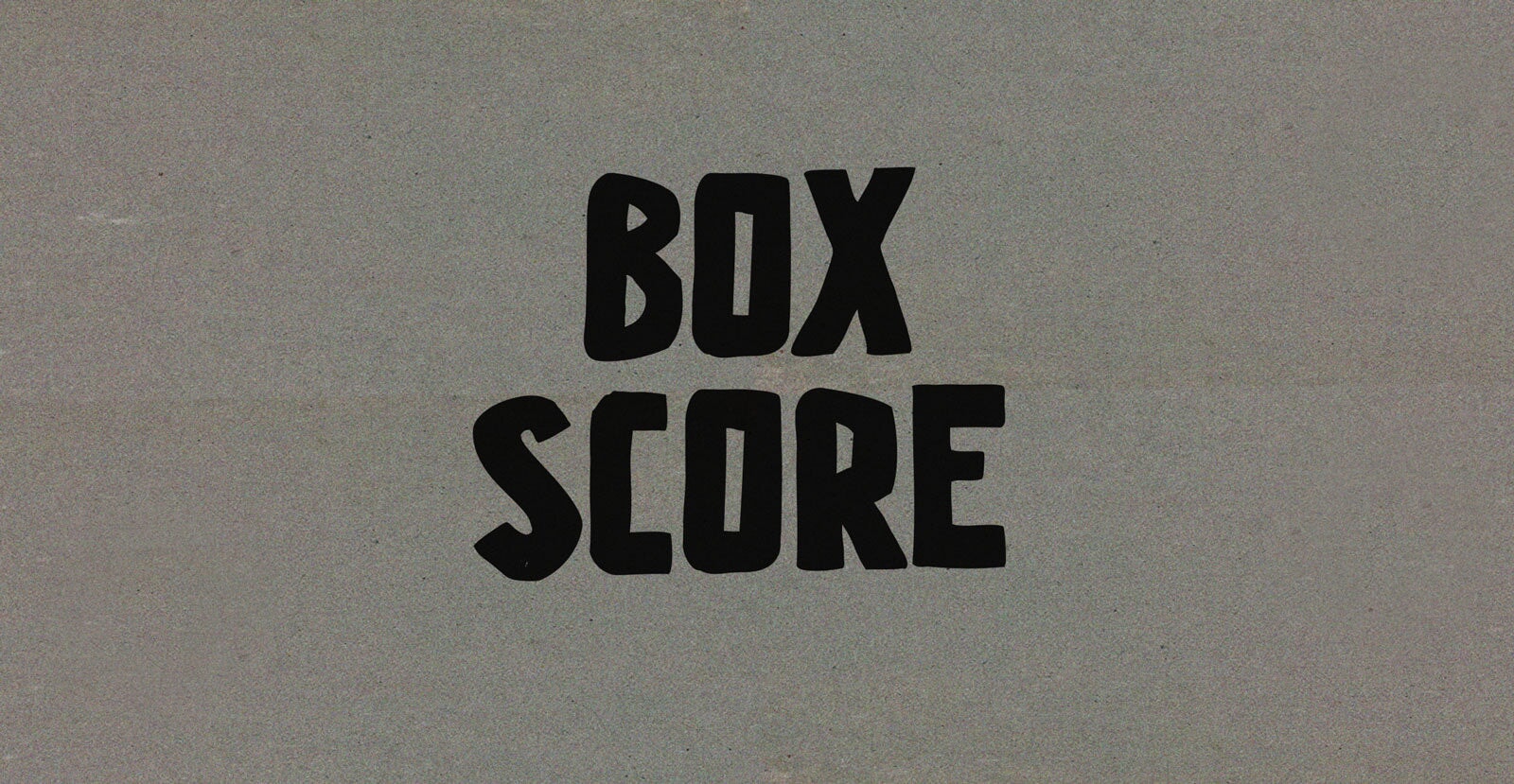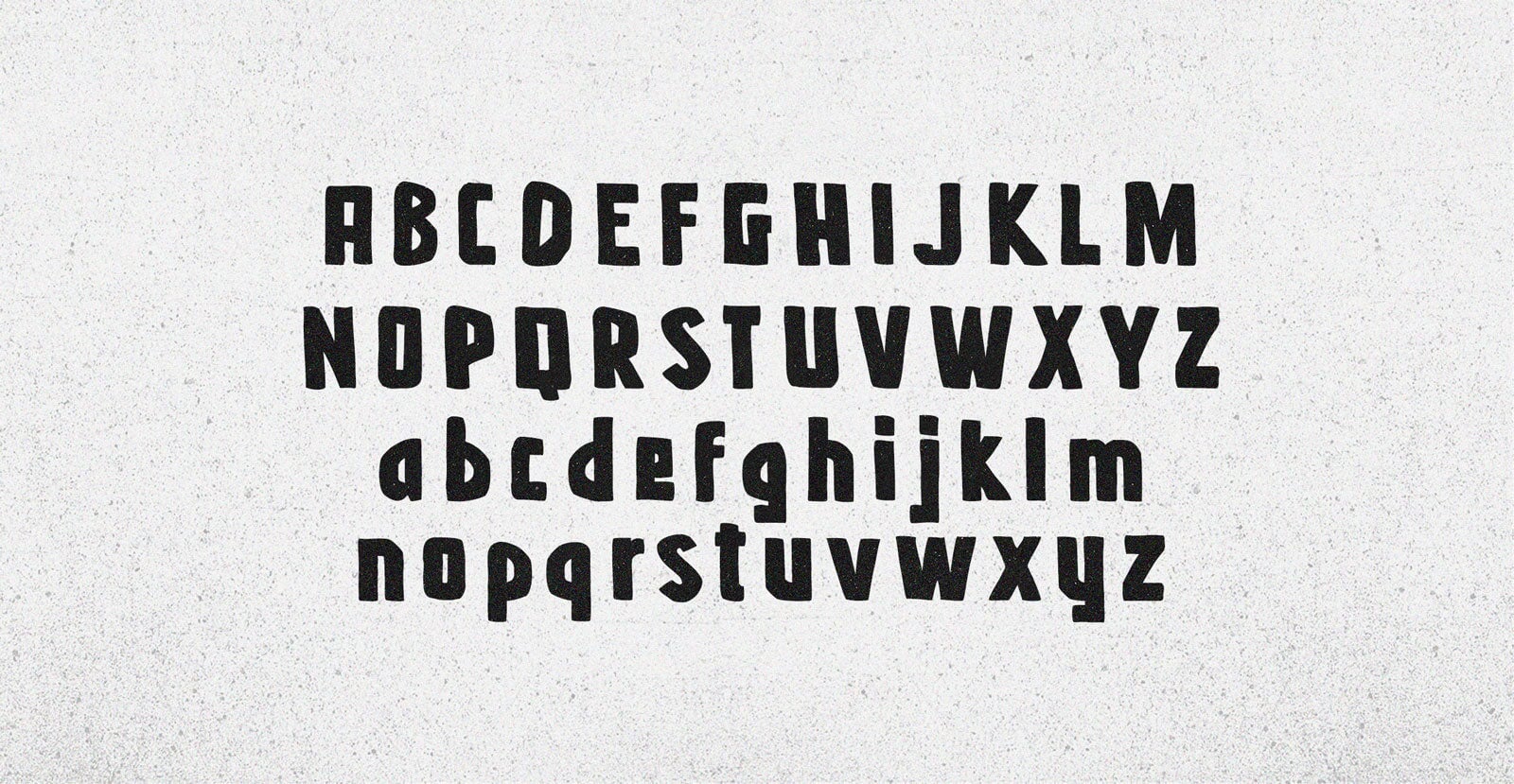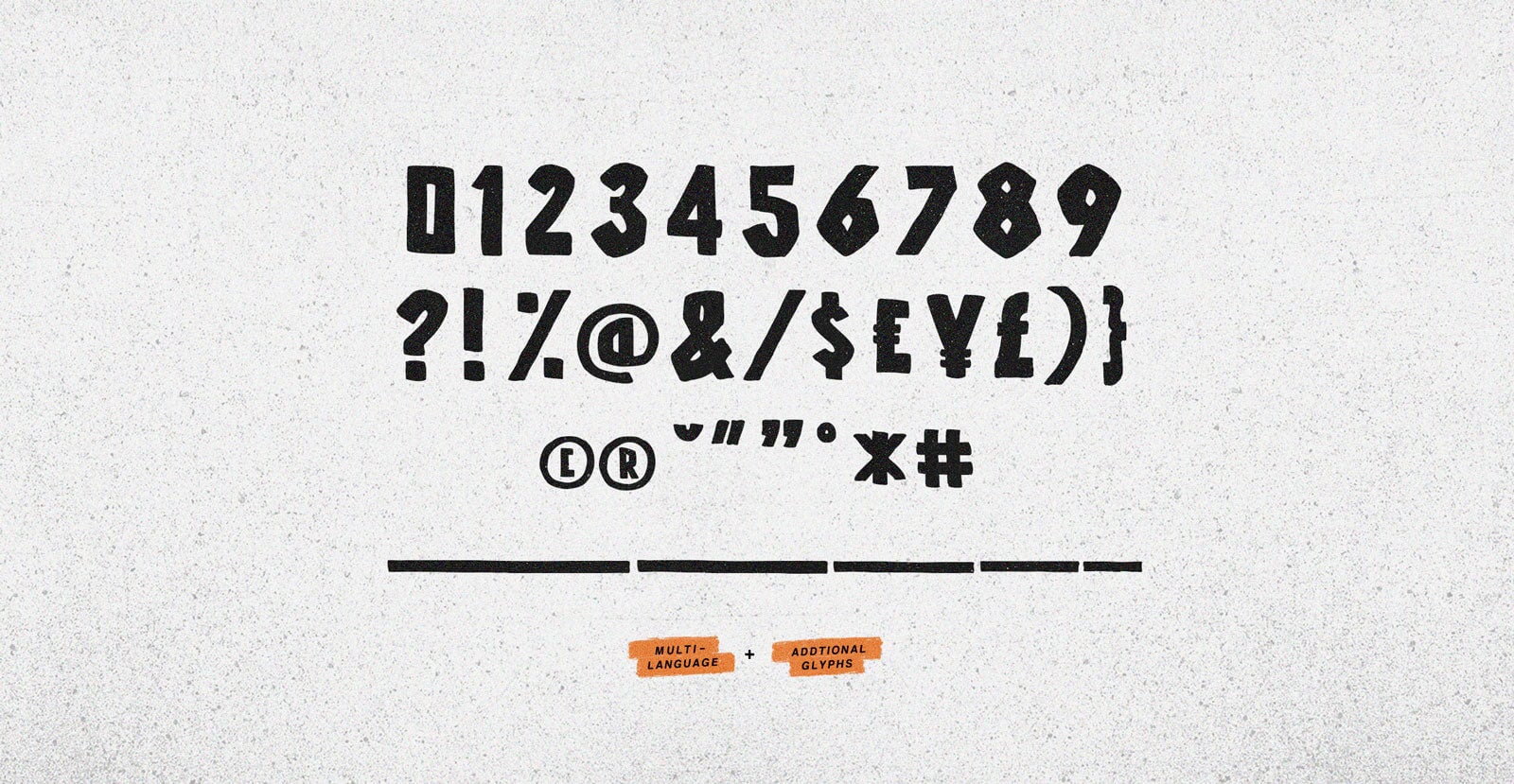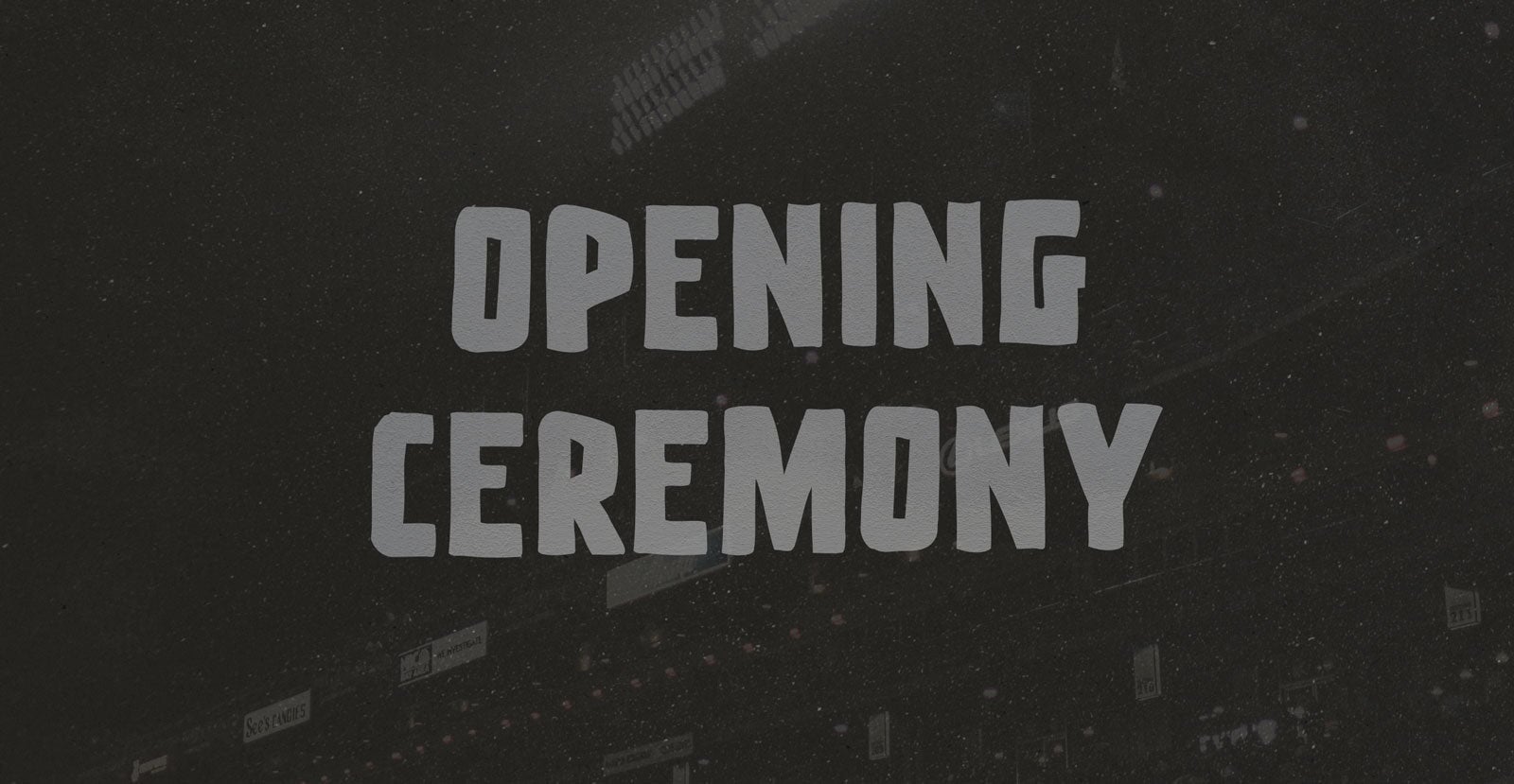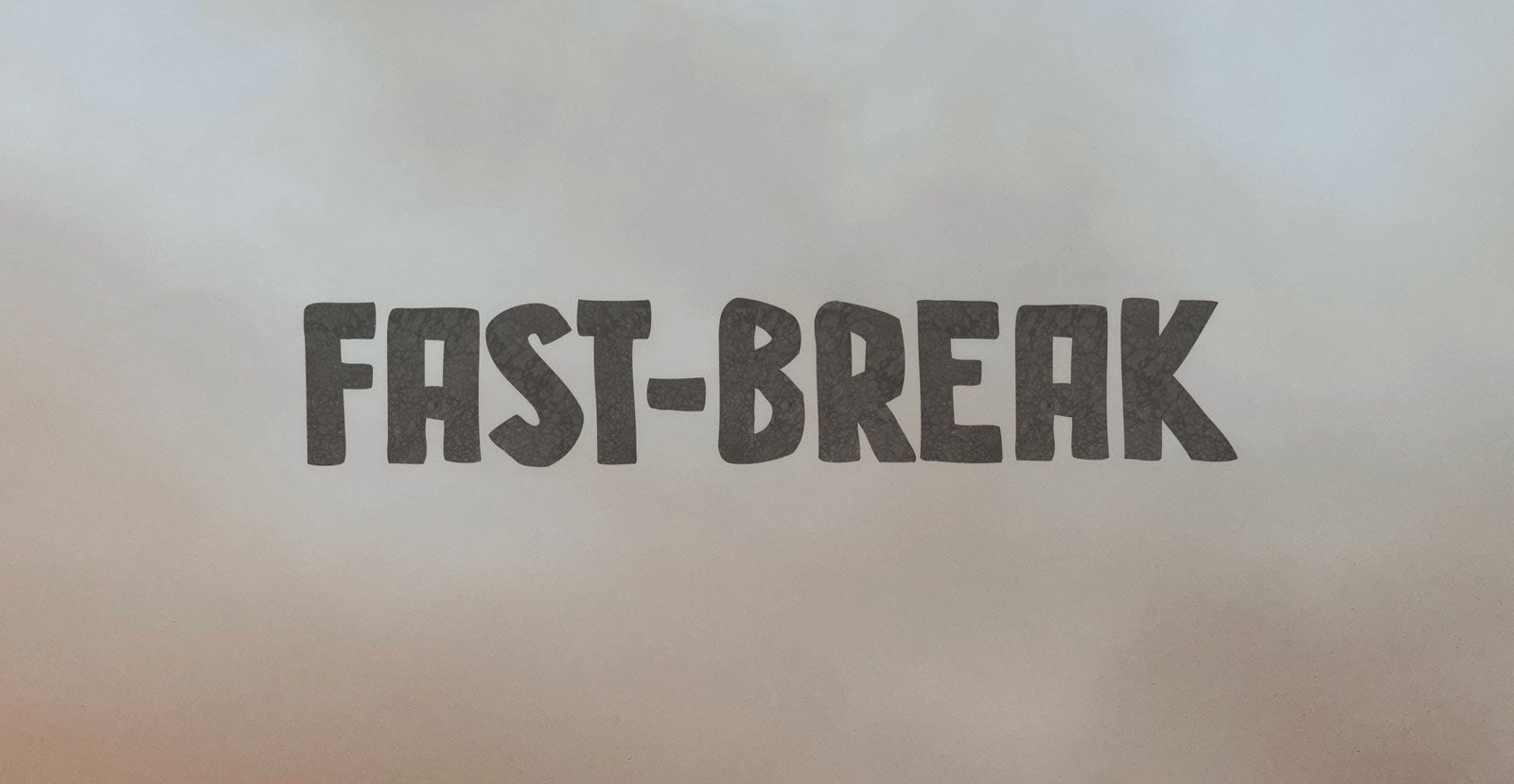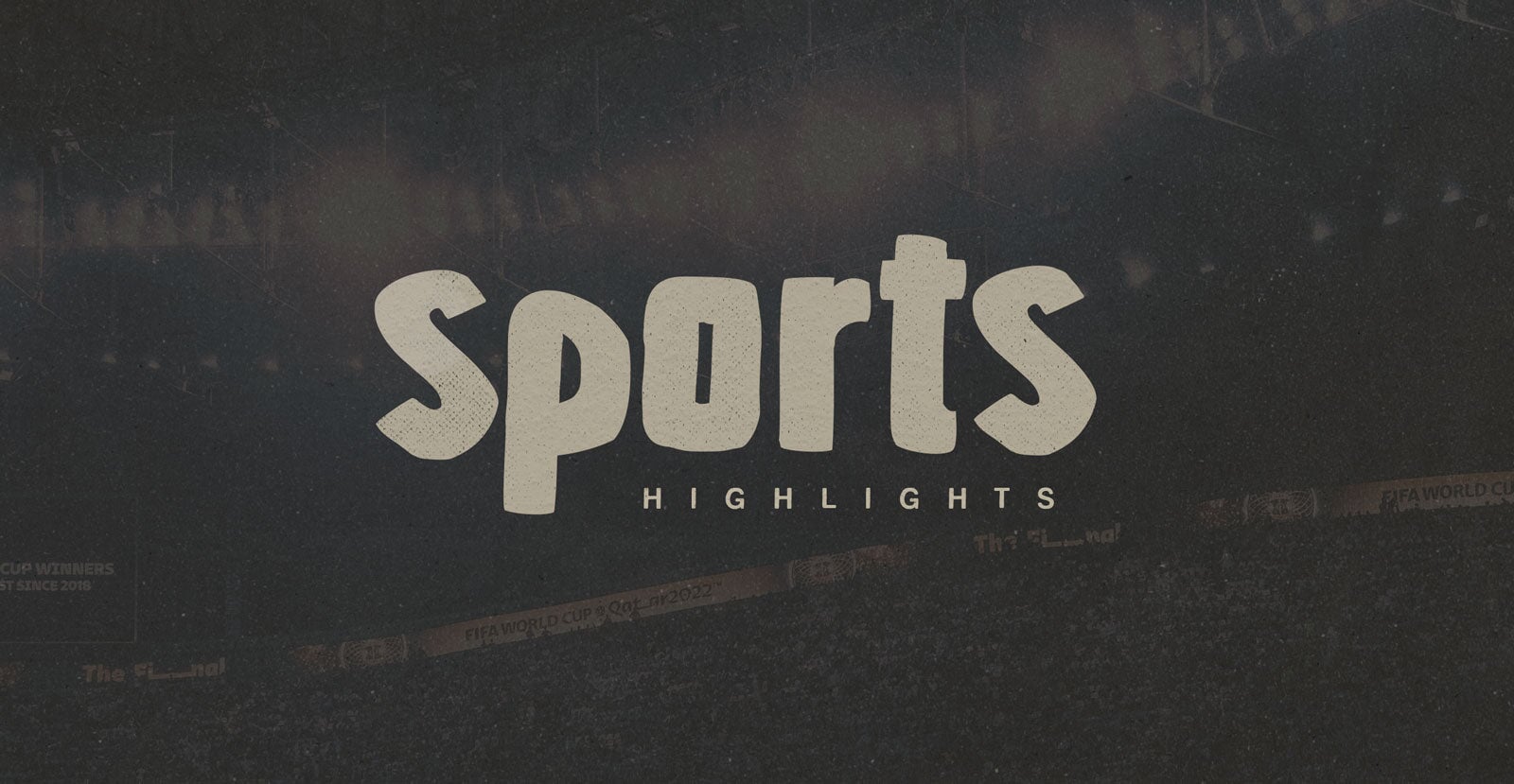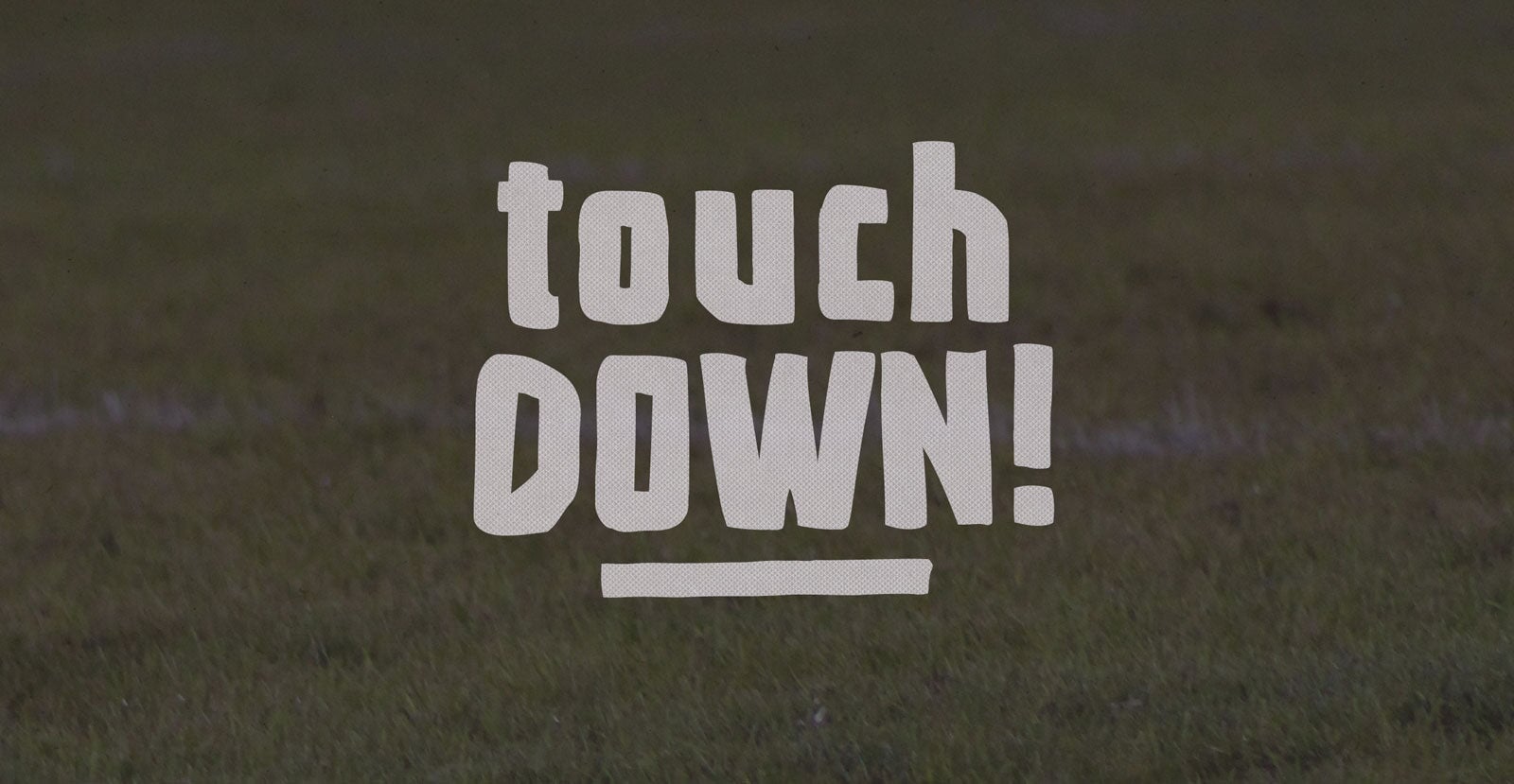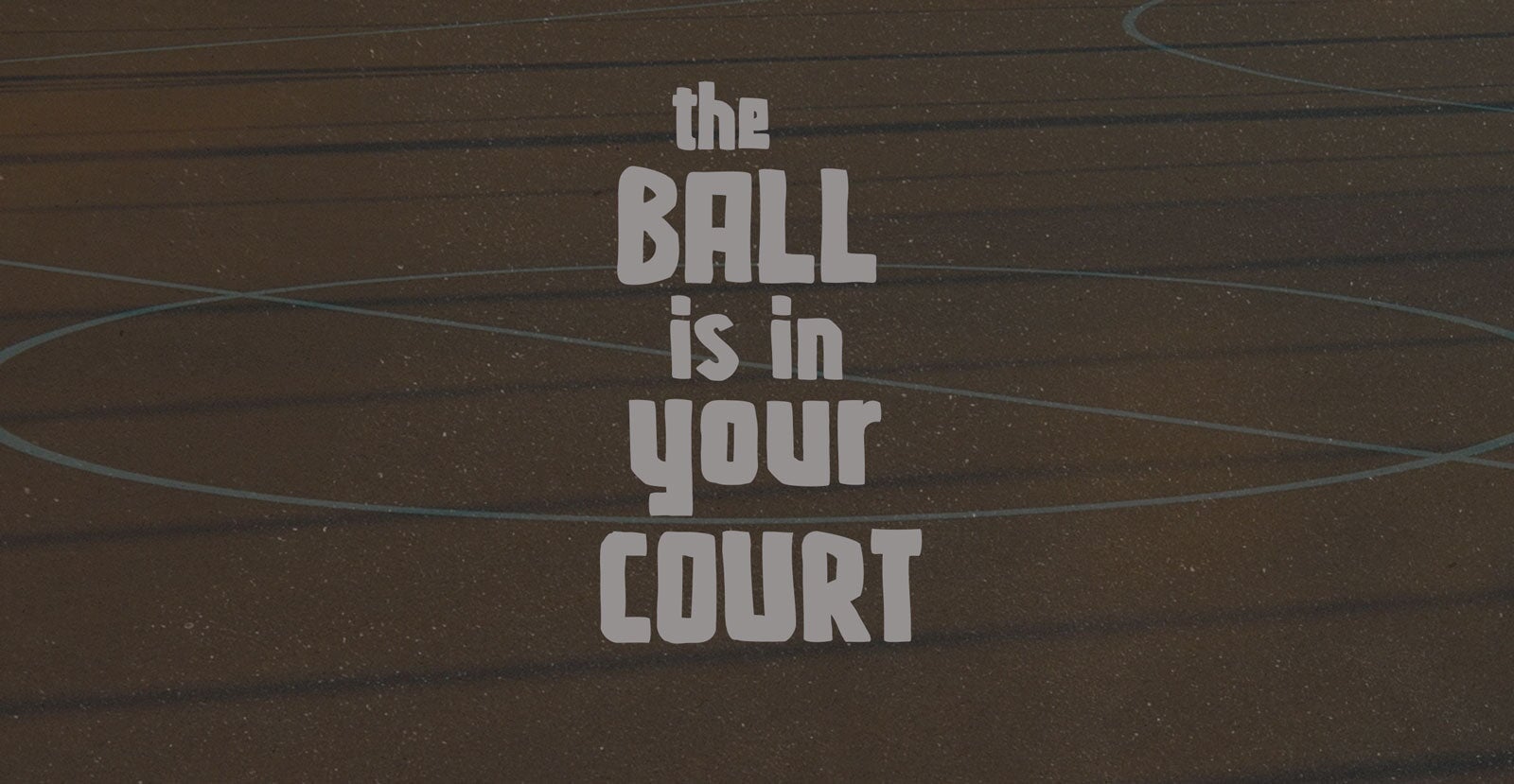
Box Score
Box Score tracks every moment with sharp clarity. Precise, minimal, and built for the details that matter. It doesn’t tell the whole story, just the truth in numbers, clean and unshaken.